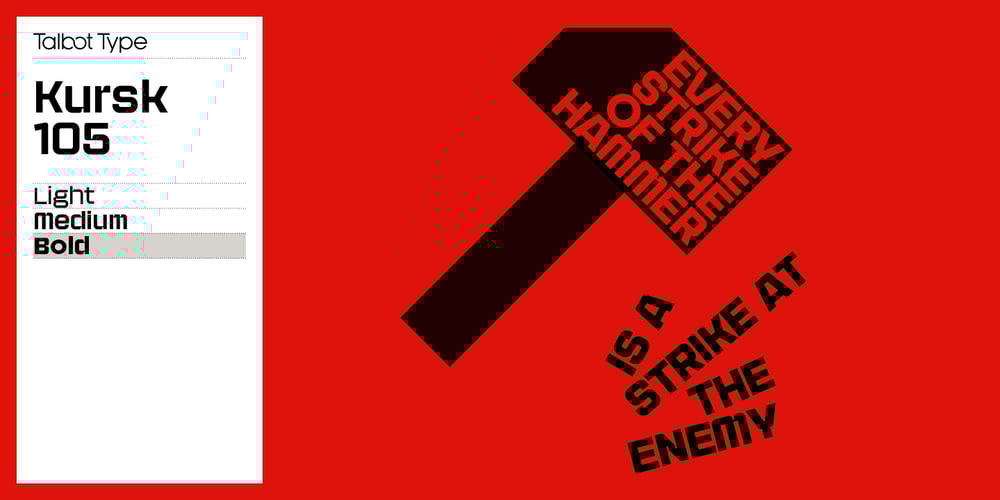
Kursk 105 Font Family was designed by Adrian Talbot and published by Talbot Type. Kursk 105 contains 6 styles and family package options. A text and display font with square proportions, inspired by the type styles of soviet-era Russia. Very shallow ascenders and descenders and a large relative x-height, exaggerate the compact and geometric look. Related to Kursk 205, its cousin with a rounder look.